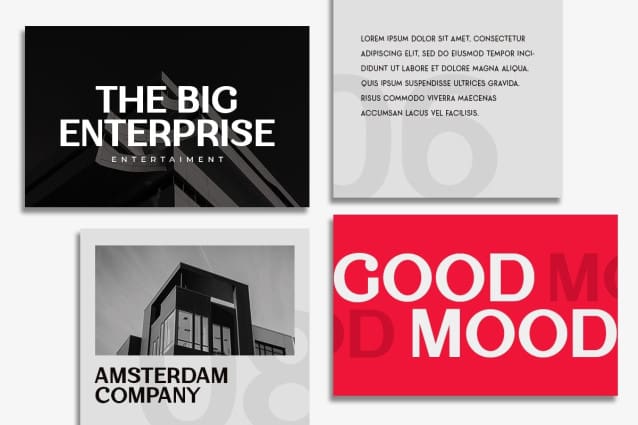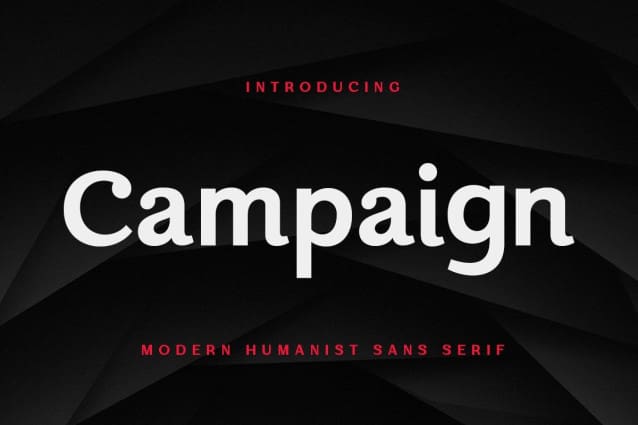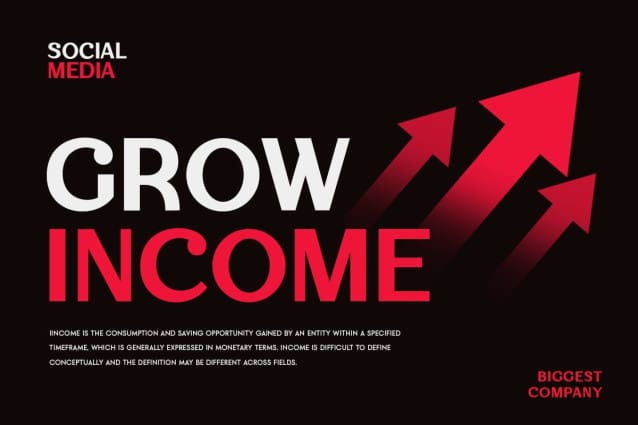
Campaign Font
Campaign Font a new San Serif font that we created especially for the typography needs of Headline, Title and more. This is perfect for adding your style and insight to your title. And especially for Headline font, we designed for a unique style and modern feel. So enjoy creating any project that will show your main idea.